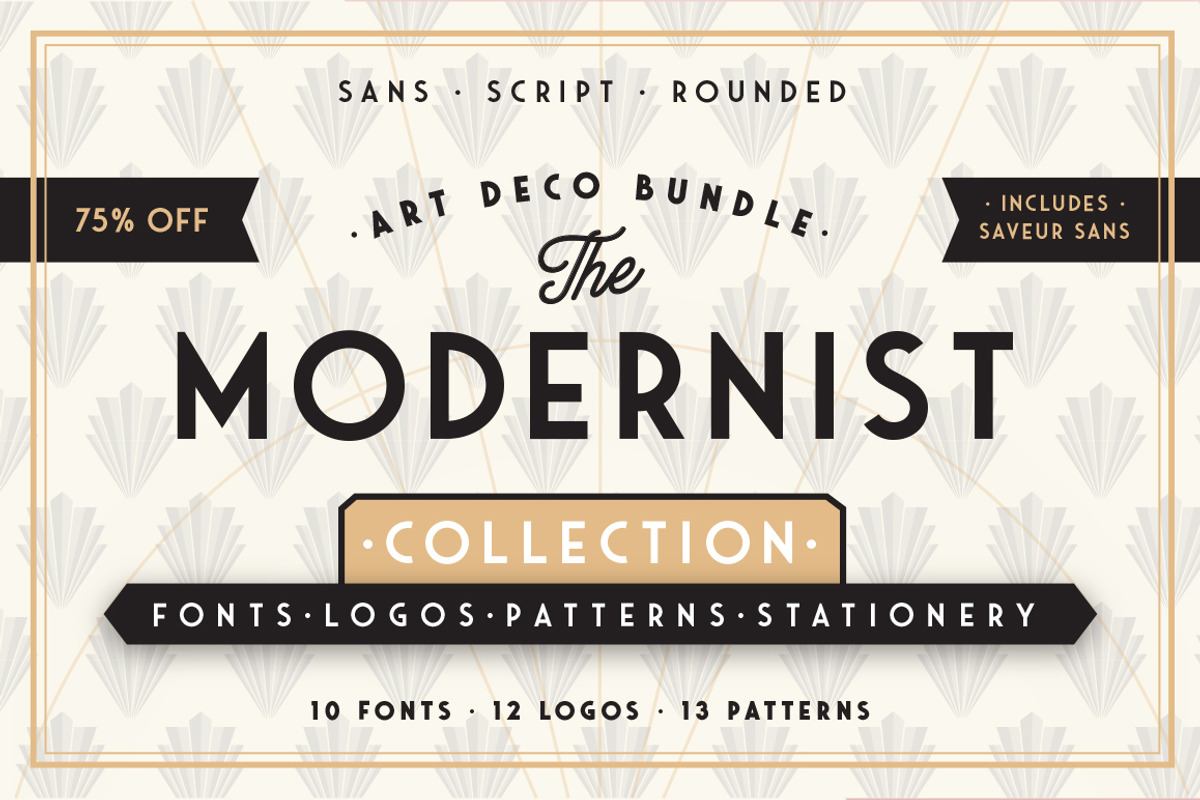
The Modernist Collection Font Free Download is a curated set of sleek, contemporary typefaces designed with clean lines, geometric structure, and minimalist elegance. Ideal for branding, editorial layouts, websites, packaging, and high-end visual identities, this collection embodies the principles of modernist design—clarity, simplicity, and balance.
Featuring a mix of sans serif, serif, and display styles, The Modernist Collection offers versatility for both text and headline use. It includes full character sets, numerals, punctuation, and may come with stylistic alternates and ligatures for added creative flexibility.
Whether you’re crafting a stylish fashion brand, a tech-forward UI, or a minimalist publication, The Modernist Collection Font Free Download gives you the tools to create polished, timeless designs. Feel free to use it for personal or demo purposes, and be sure to purchase the appropriate license for any commercial use. Embrace modern design at its finest with this sophisticated font collection.